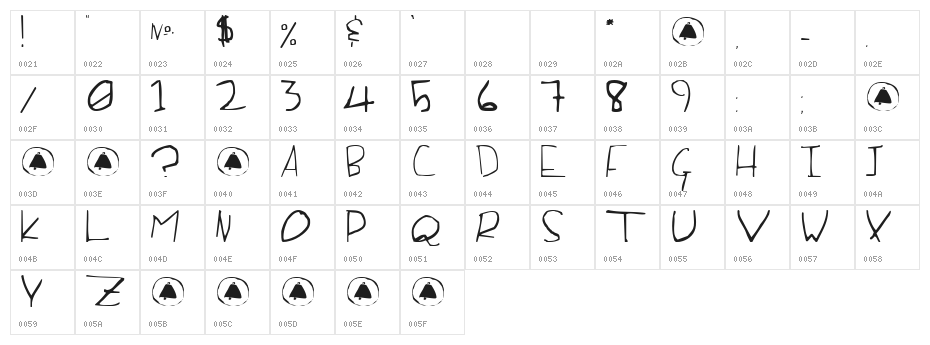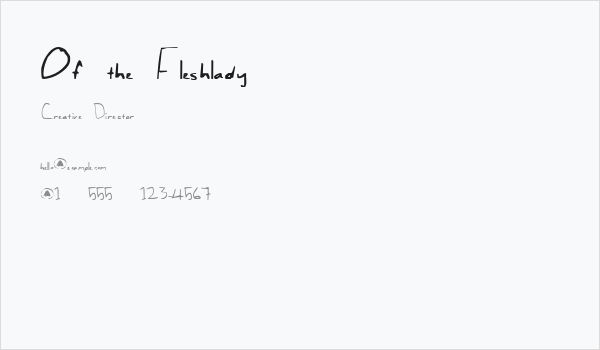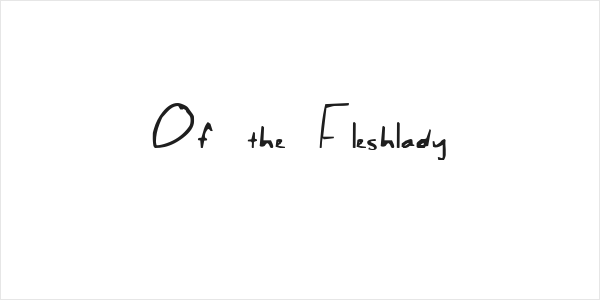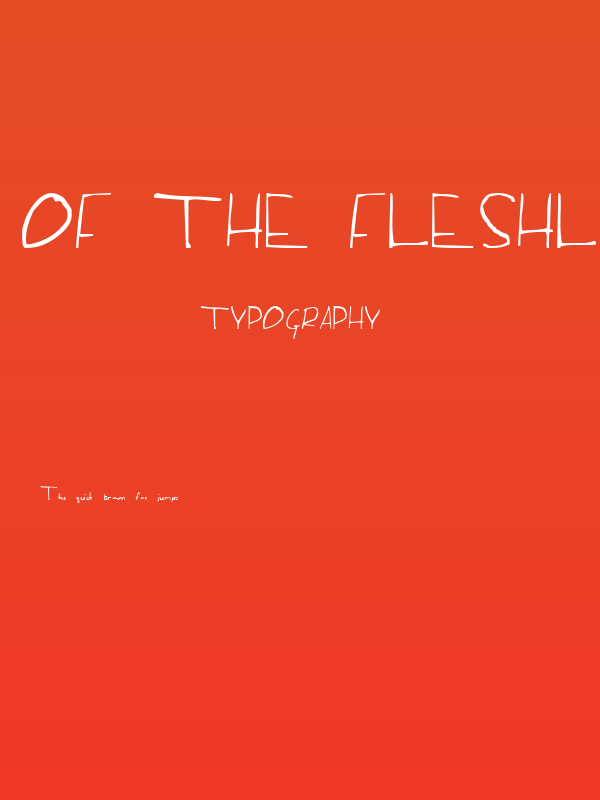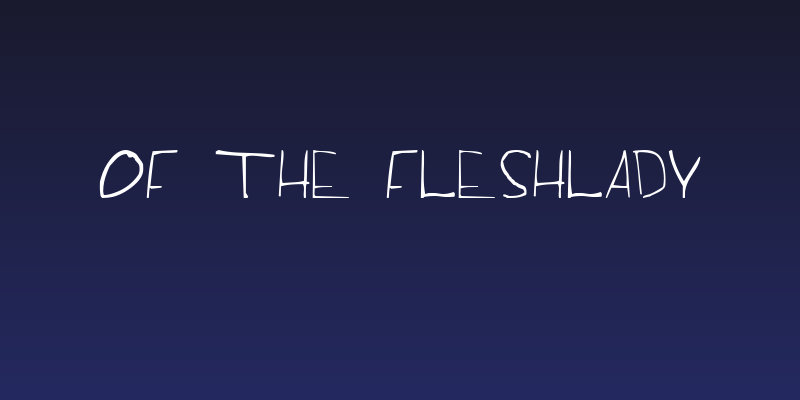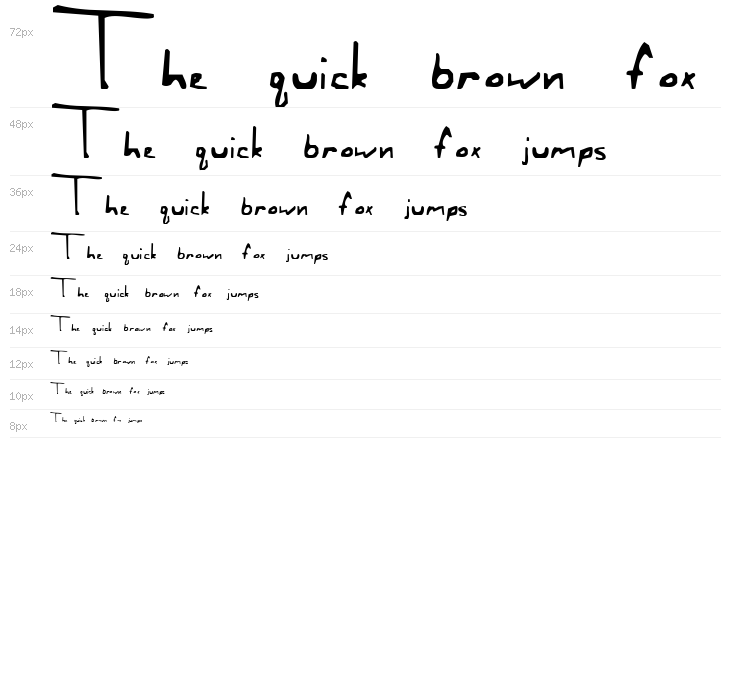
Of the Fleshlady Font
Of the Fleshlady Description
This font features a playful and informal handwritten style, characterized by its irregular strokes and casual appearance. The uppercase letters are tall and slightly uneven, giving a whimsical feel, while the lowercase letters maintain a consistent flow with a touch of spontaneity. Numbers and special characters follow the same informal style, adding to the font's overall charm. The strokes vary in thickness, providing a dynamic and lively look. This font is ideal for projects that require a personal touch or a fun, relaxed vibe.